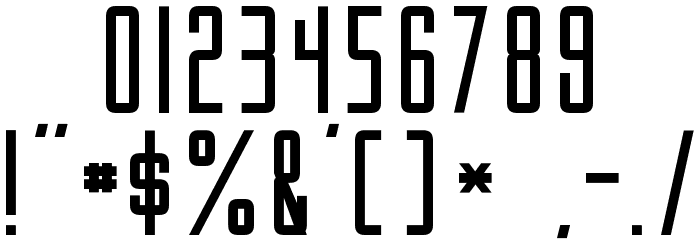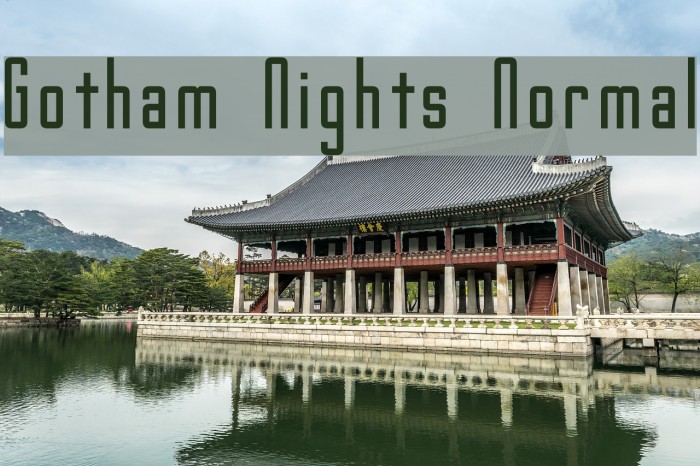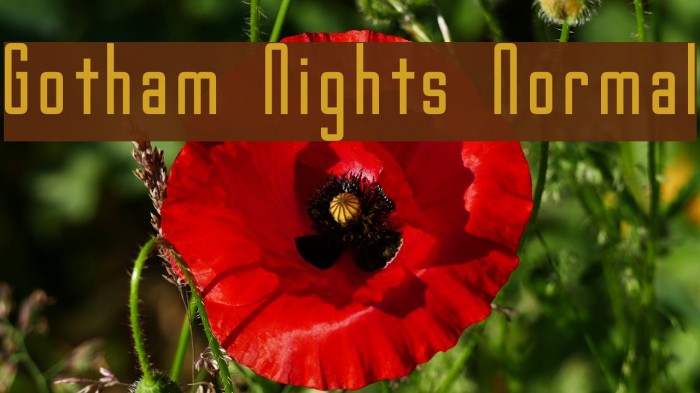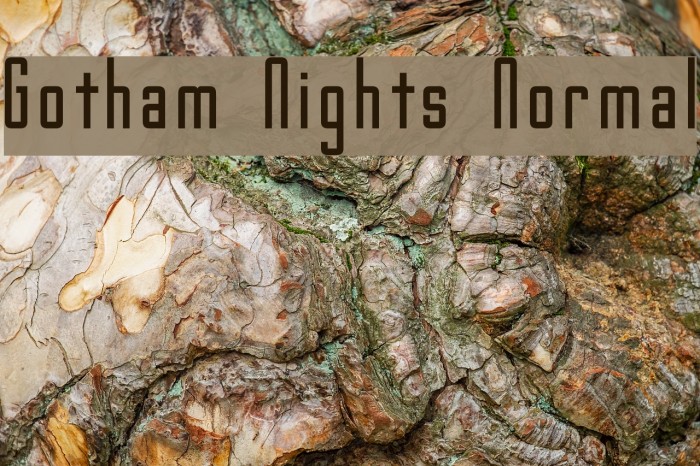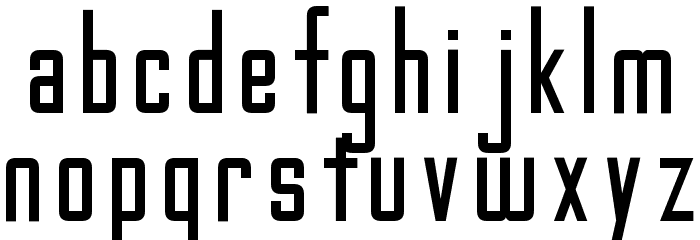
Gotham Nights Normal Font
Gotham Nights Normal Description
This font features a modern, geometric design with a strong emphasis on vertical lines and sharp angles. The uppercase letters are tall and narrow, creating a sleek and sophisticated appearance. The lowercase letters maintain a consistent style, with a slightly more rounded approach, providing a balanced contrast to the uppercase. The numerals are uniform in height, complementing the overall aesthetic. Special characters are designed with the same geometric precision, ensuring a cohesive look across all elements. This font's clean lines and structured form make it ideal for contemporary design projects.